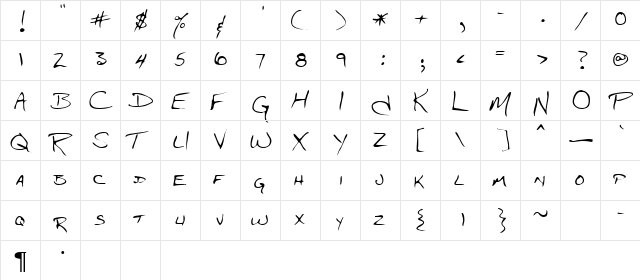
Jdrfont Regular
Design Context for Jdrfont Typeface
Jdrfont is a composed and adaptable typeface that performs quietly and consistently across a wide range of design contexts.